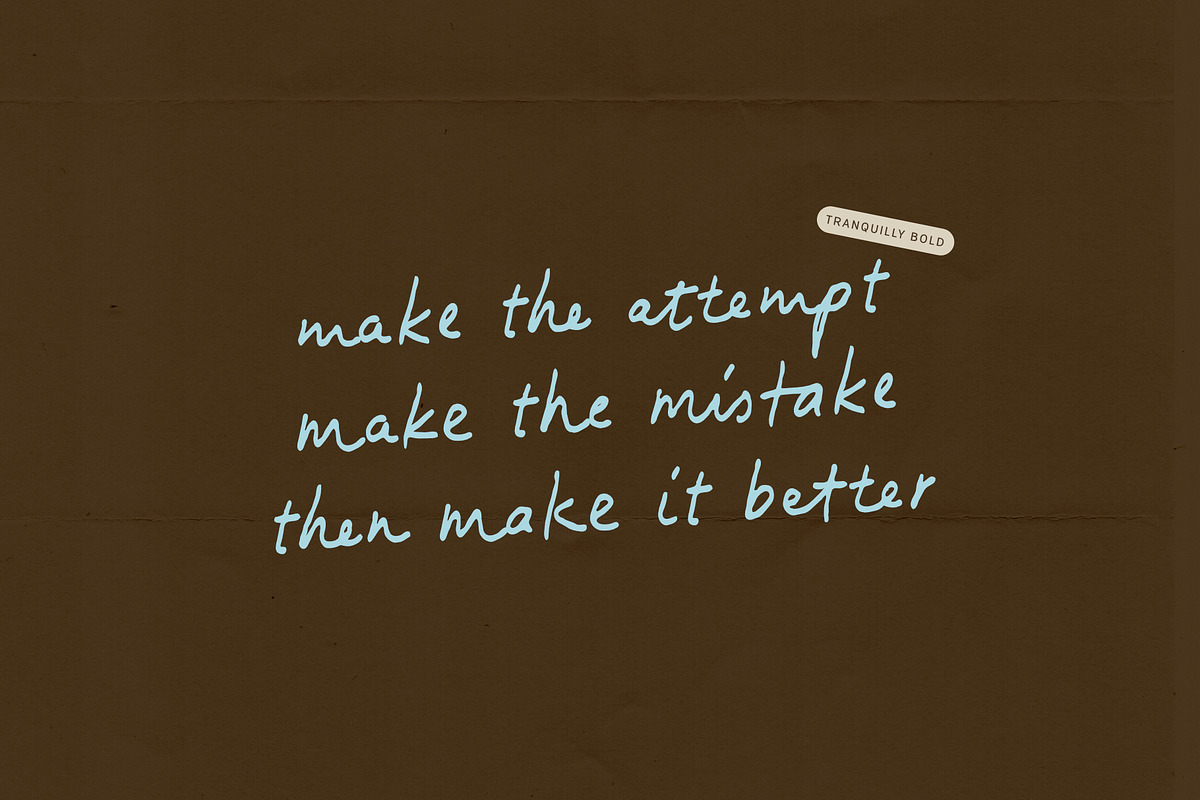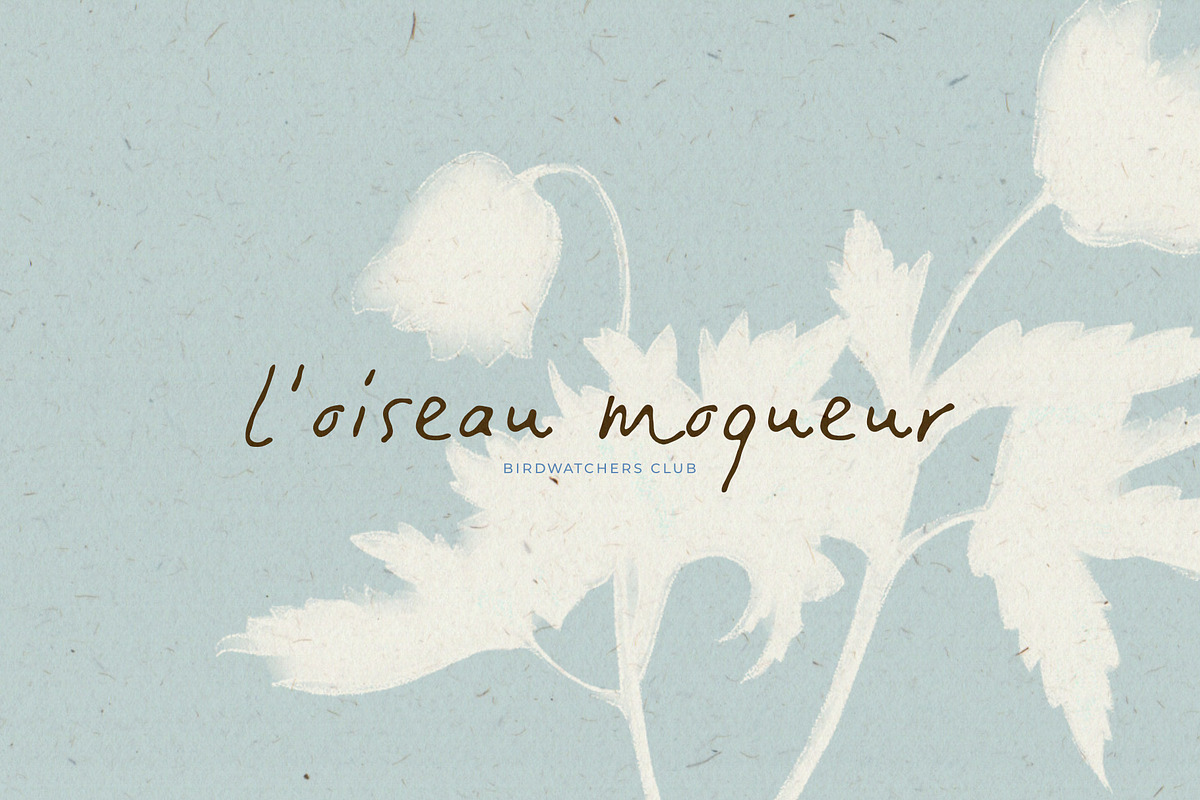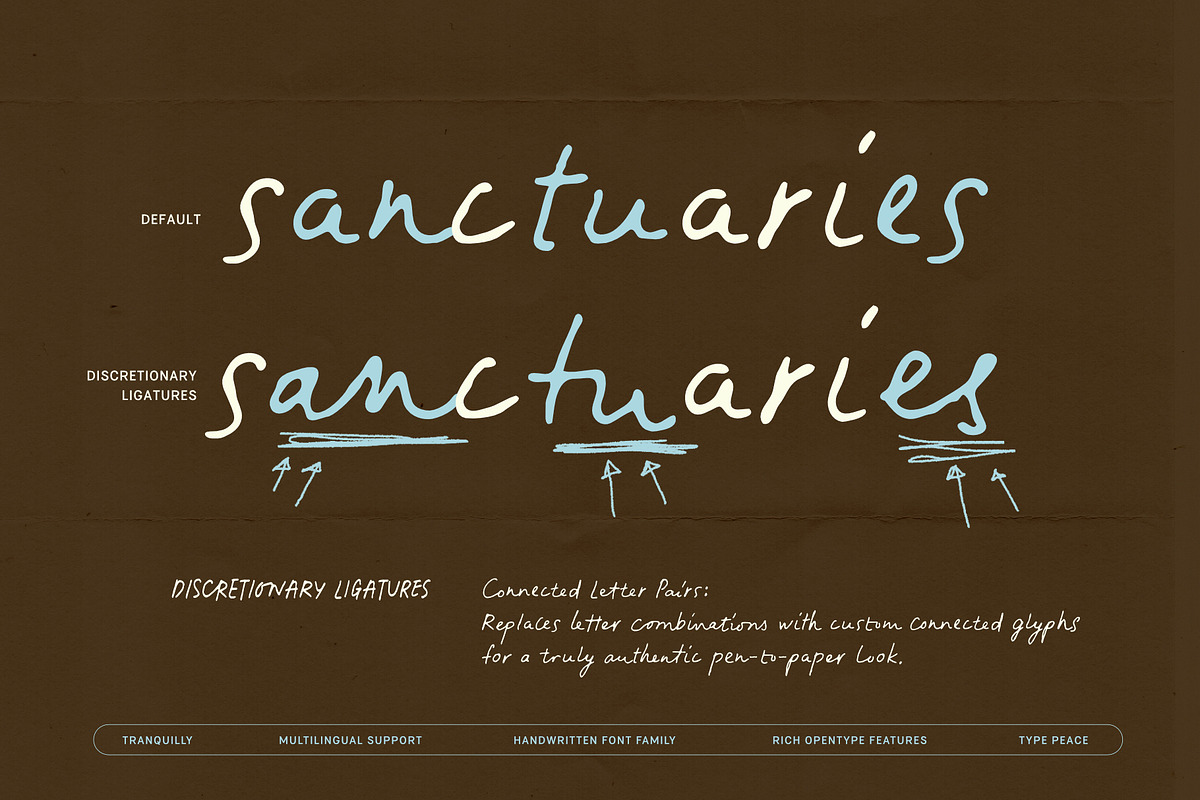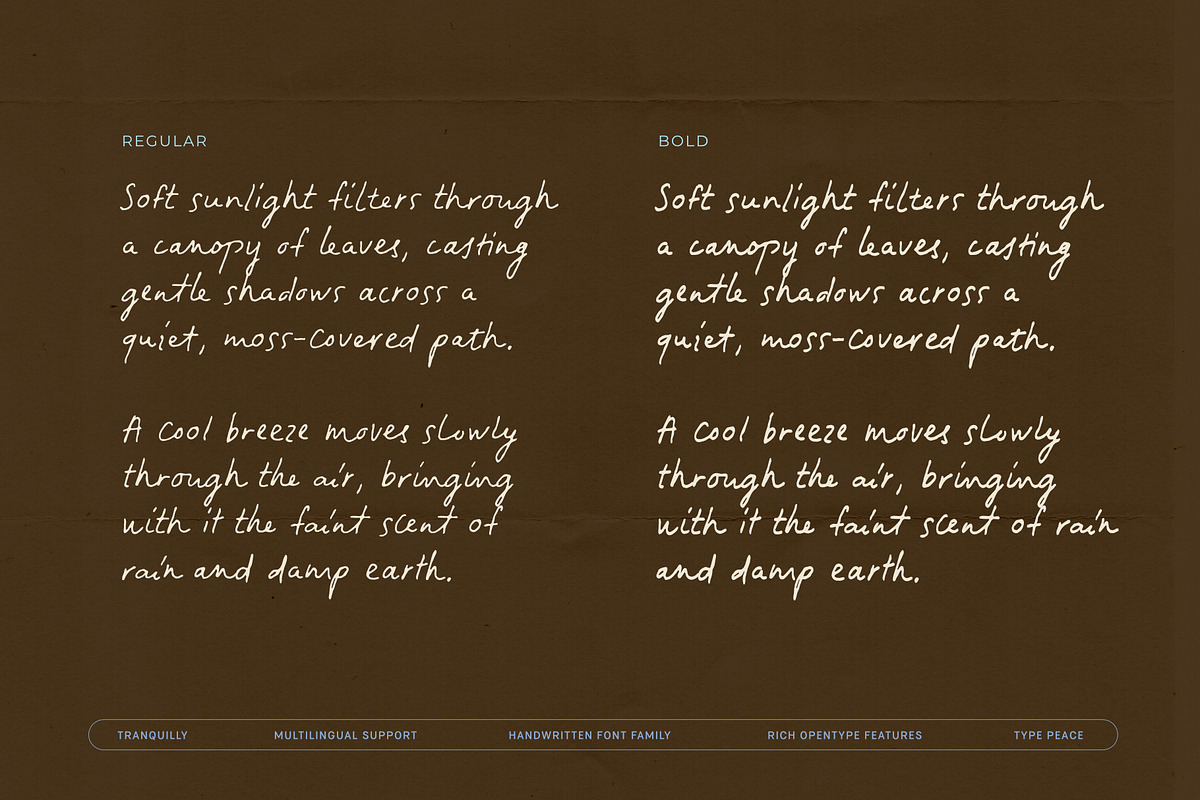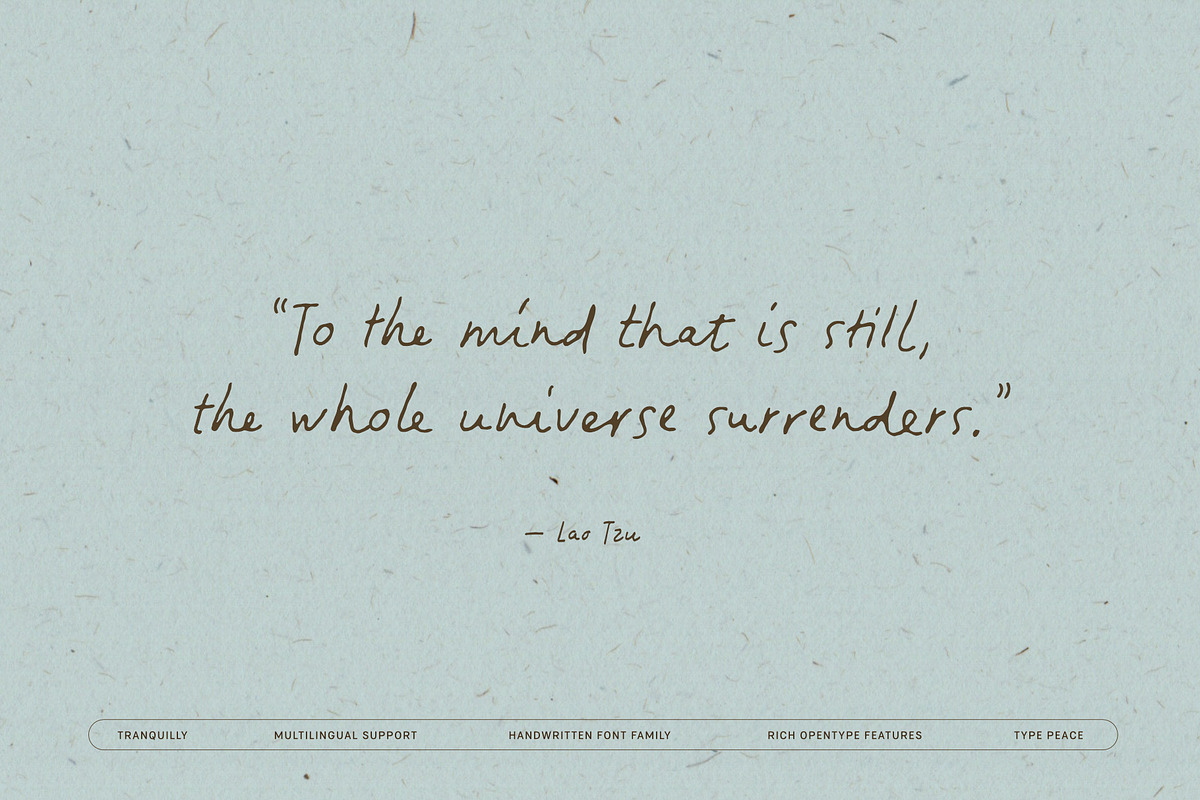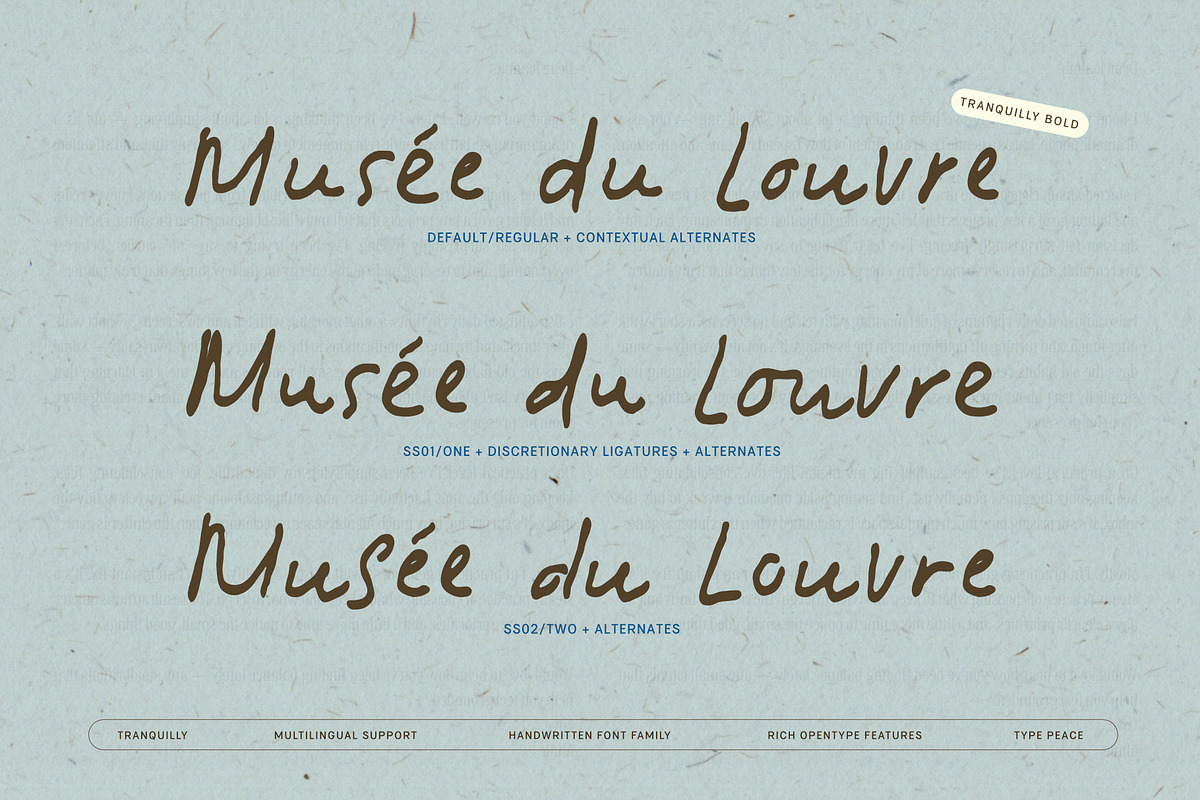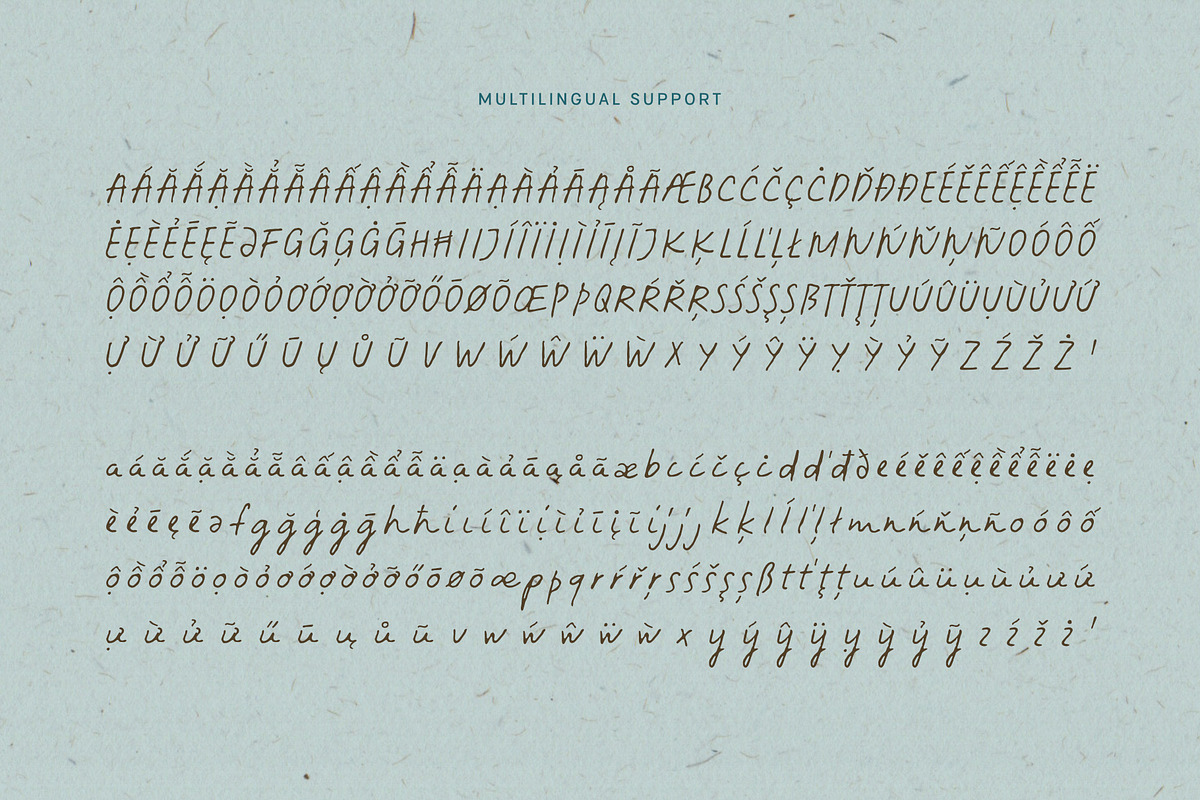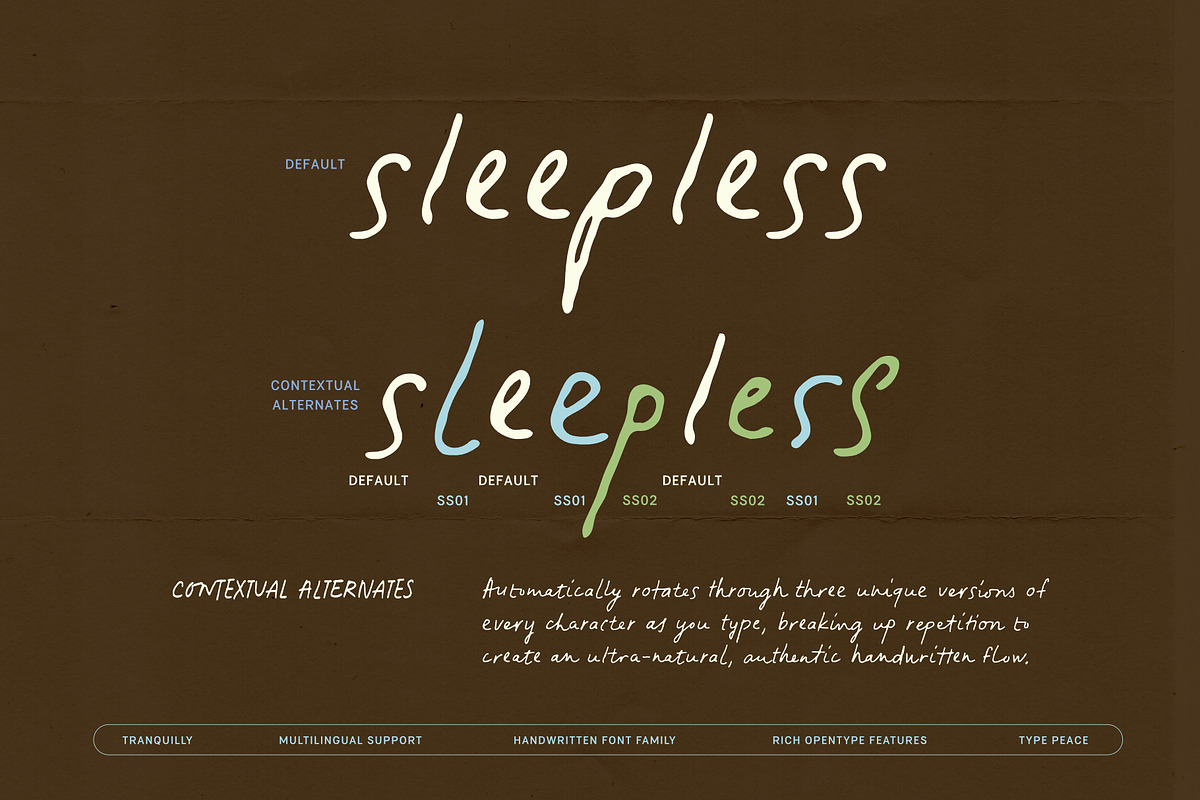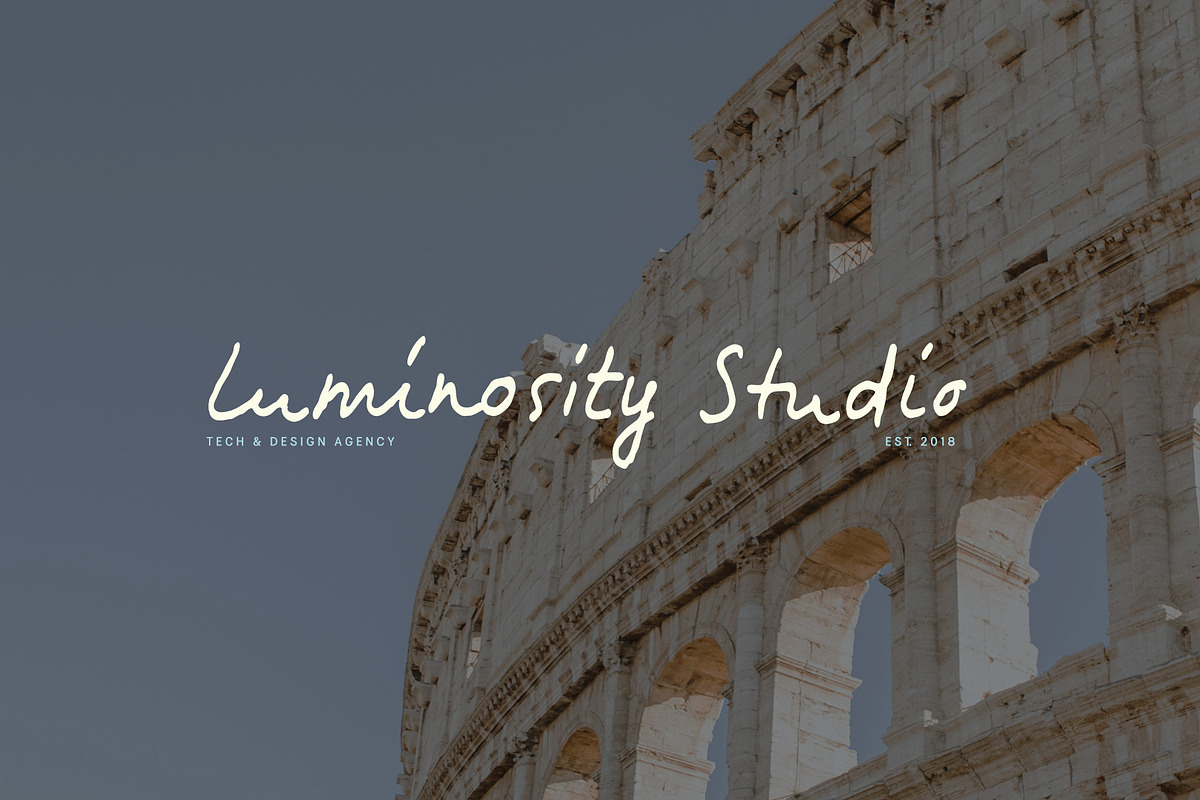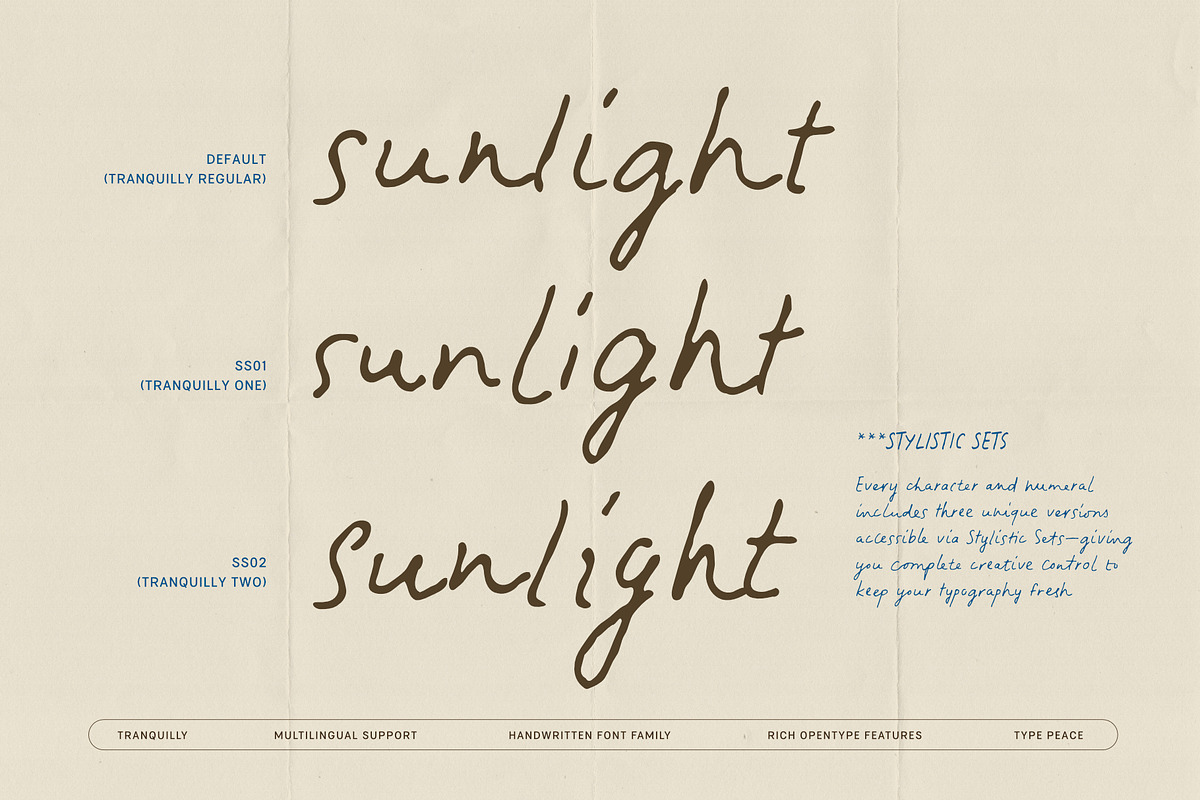
Tranquilly | Handwritten Font
Tranquilly is a relaxed typeface crafted from real handwriting.
Its organic texture and loose rhythm capture the charm of authentic penmanship, adding warmth and personality to any layout.
Built with extensive letter variations and rich OpenType features, Tranquilly brings spontaneity and natural flow to your text. Featuring comprehensive multilingual support, it’s the perfect choice for projects seeking an honest, artistic touch.
3 Versions of each letter and number: A–Z, a–z, 0–9
2 Weights: Regular & Bold
Full Character Set: Uppercase, lowercase, numerals, punctuation, and symbols
Smart OpenType Features: Standard Ligatures, Discretionary Ligatures, Contextual Alternates, and Stylistic Sets
Comprehensive Multilingual Support
Script: Latin
Supported Languages: English, Western European, Central European, South Eastern European, Vietnamese, South American